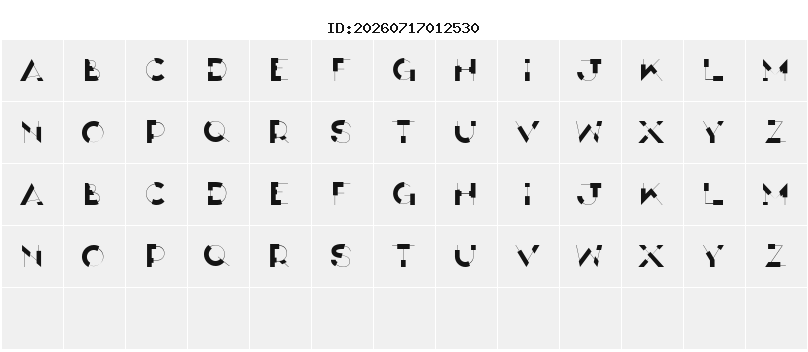
• Font Name: ANTI
• Designer: Bonez Designz
• Manufacturer: Bonez Designz - Fie Clarke
About ANTI.ttf
ANTI.ttf is a modern, elegant sans-serif font designed for ultimate readability and visual harmony. Perfect for branding, headlines, web design, and print materials.